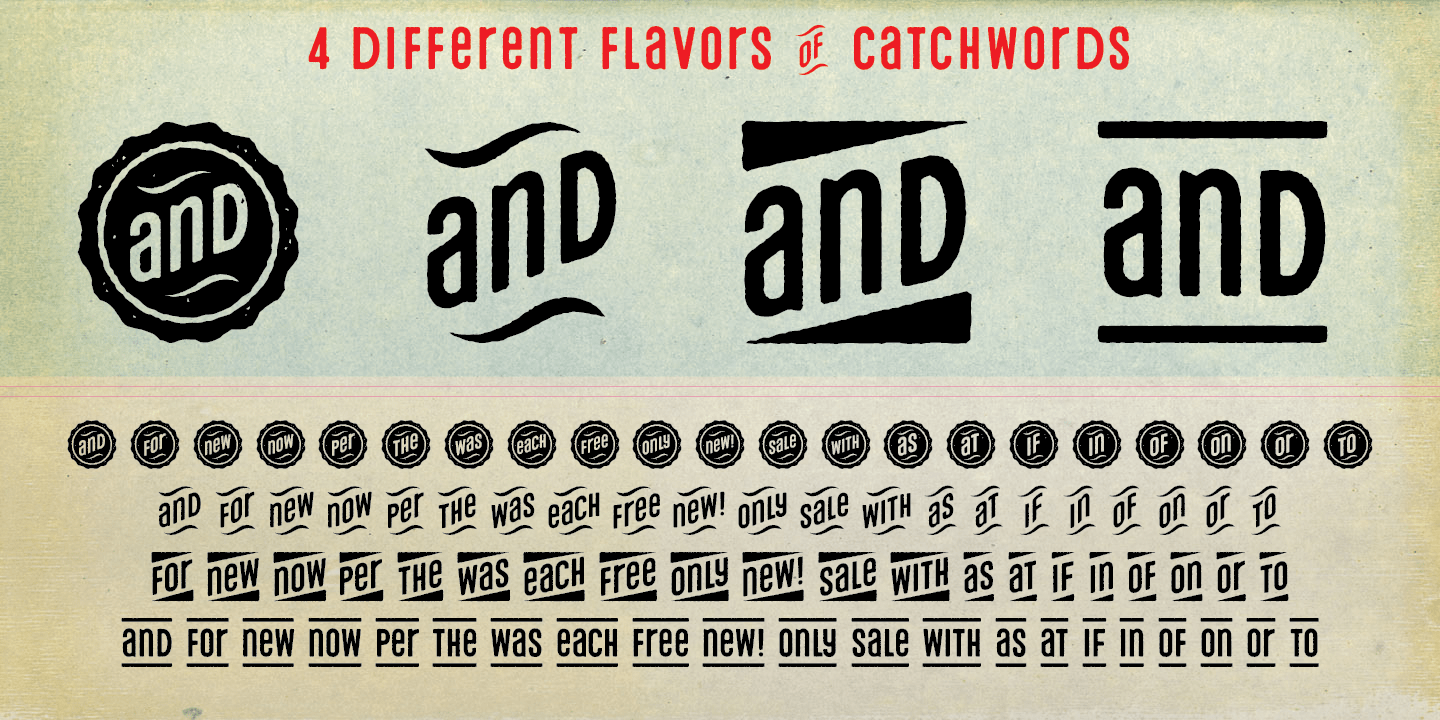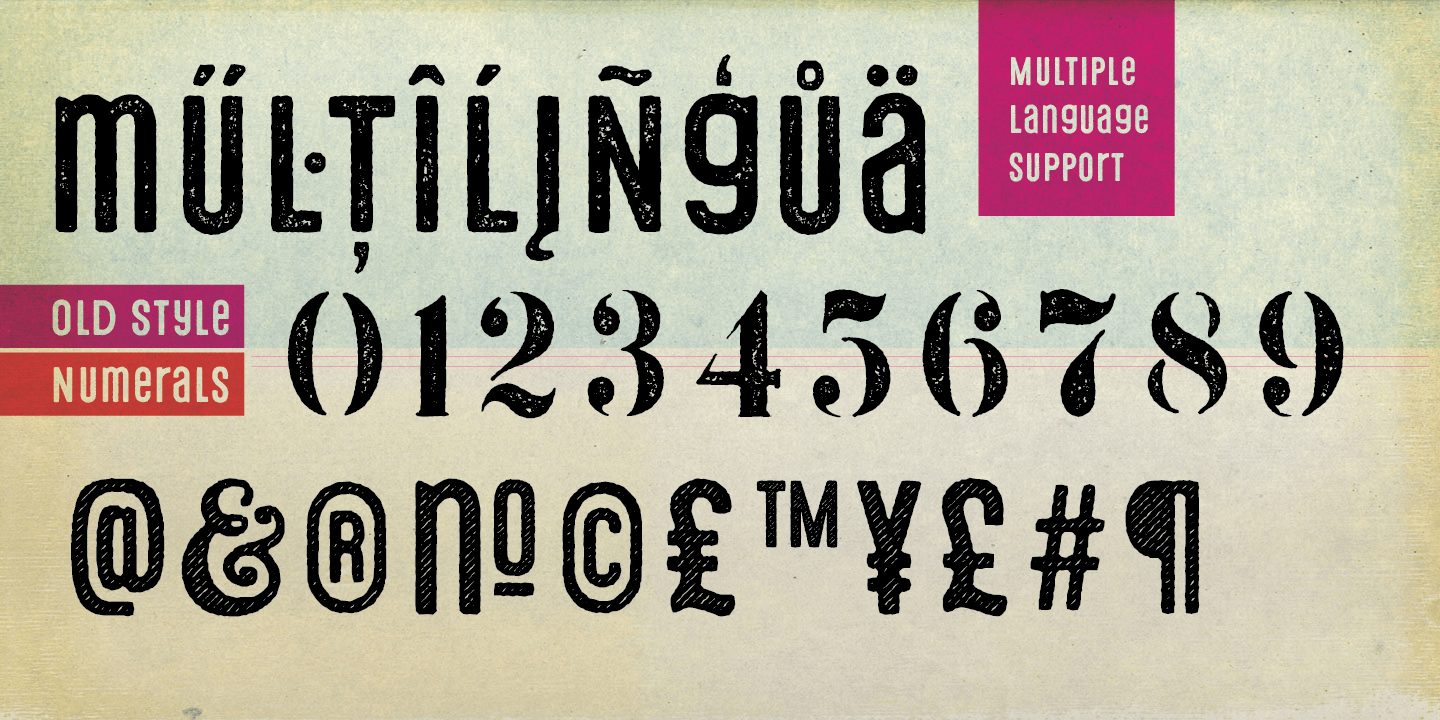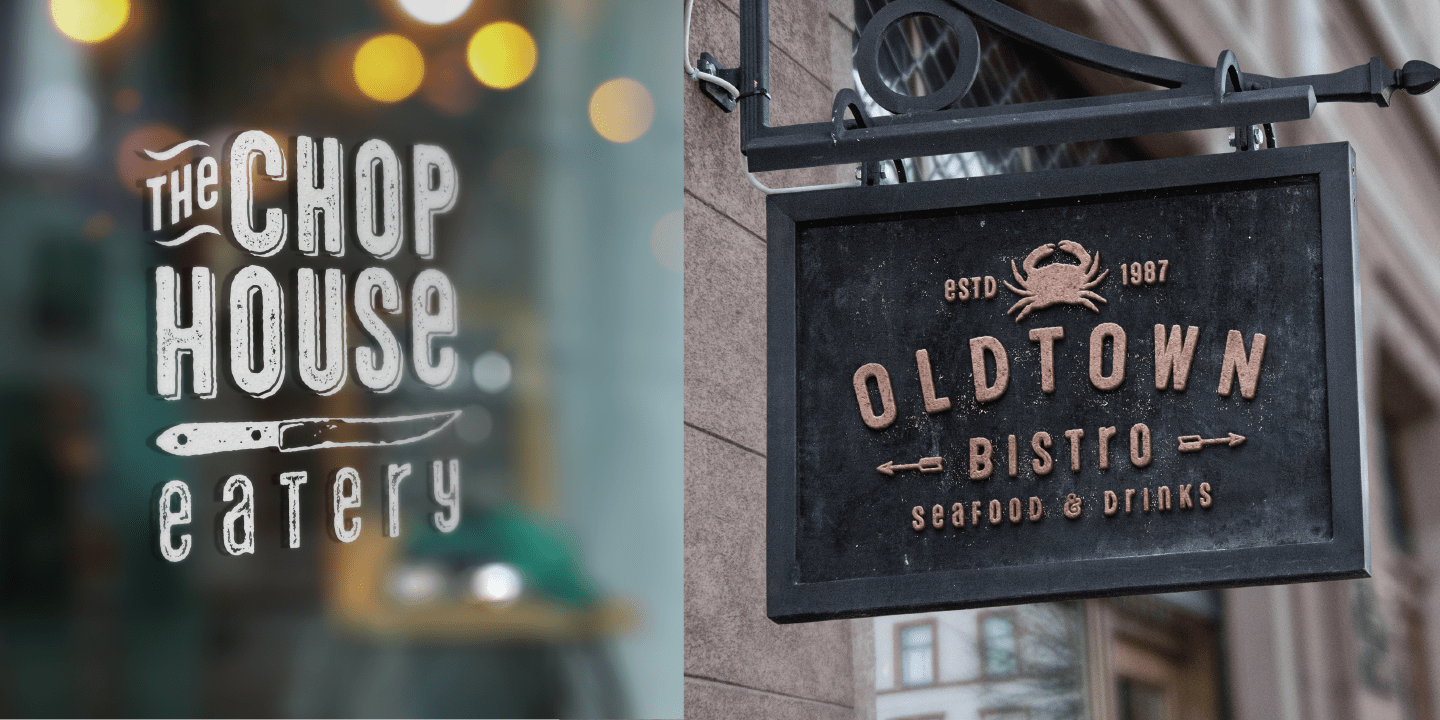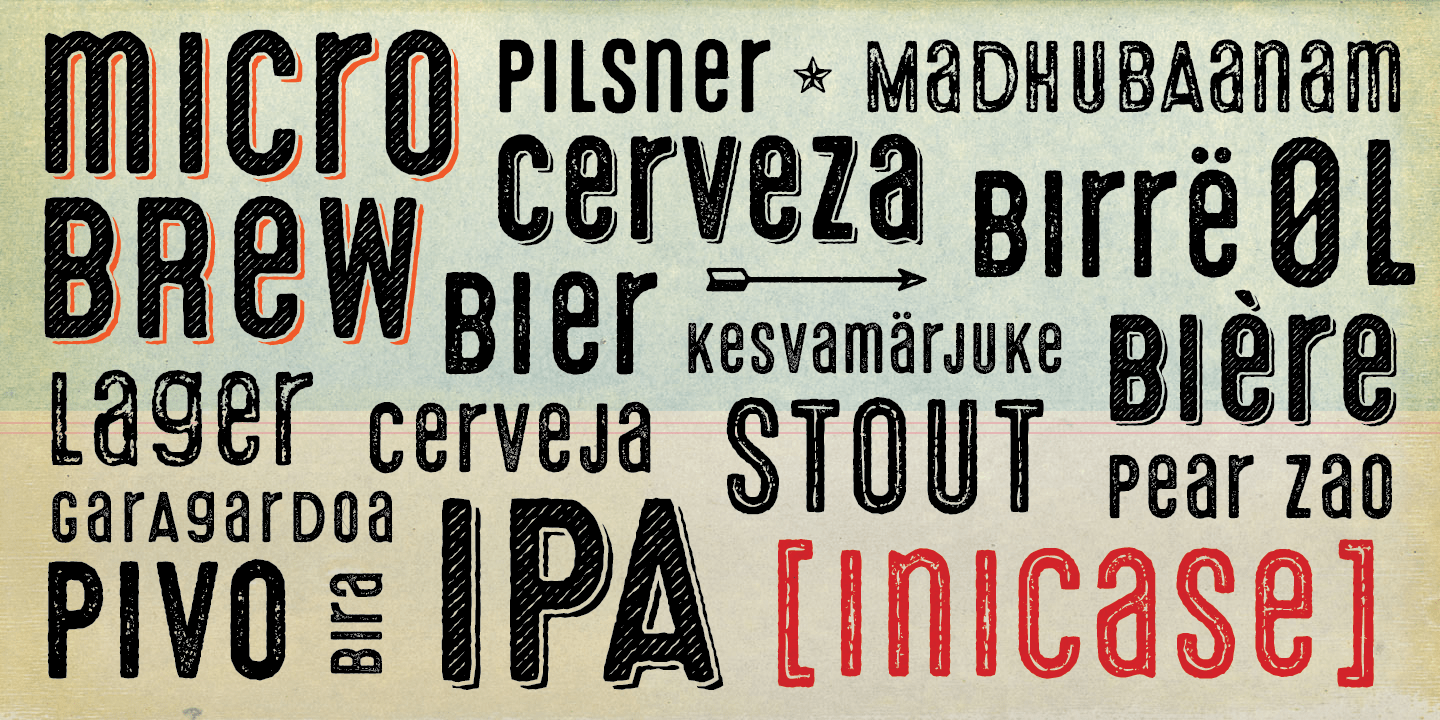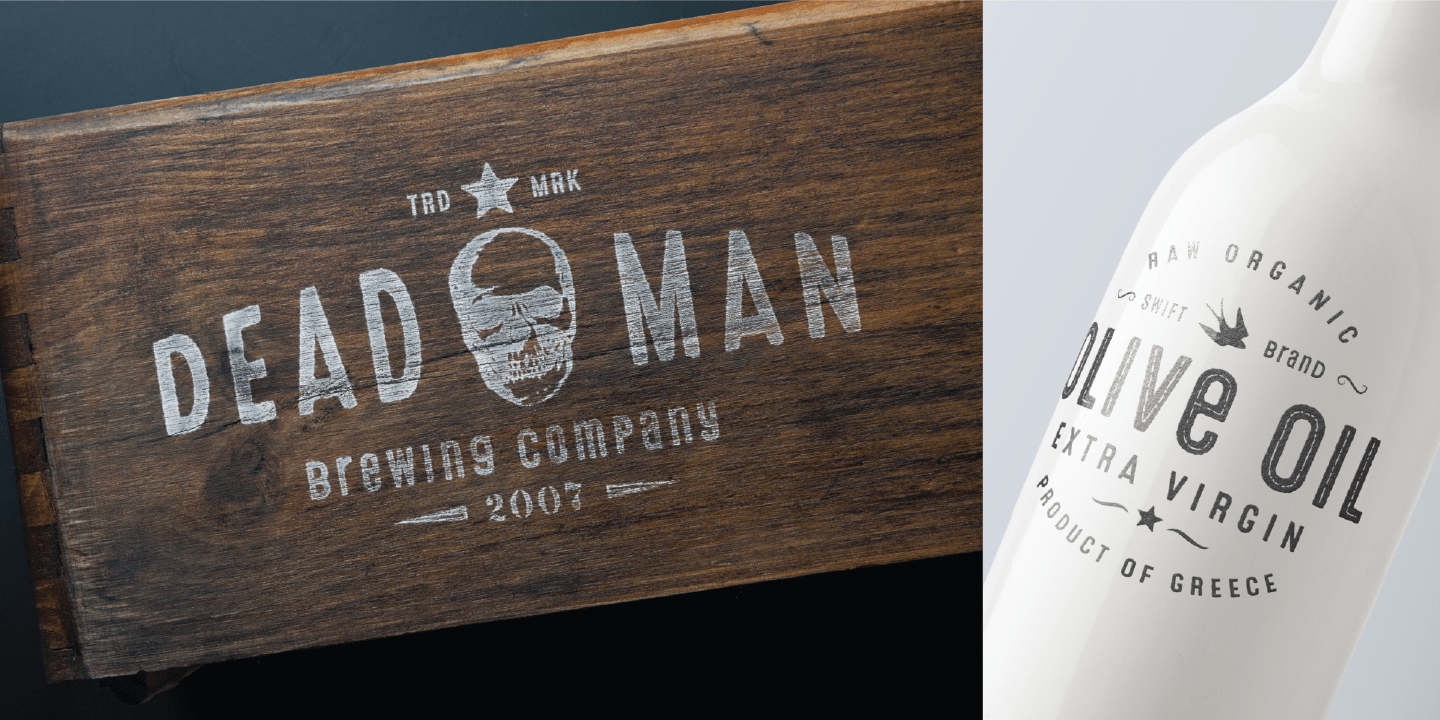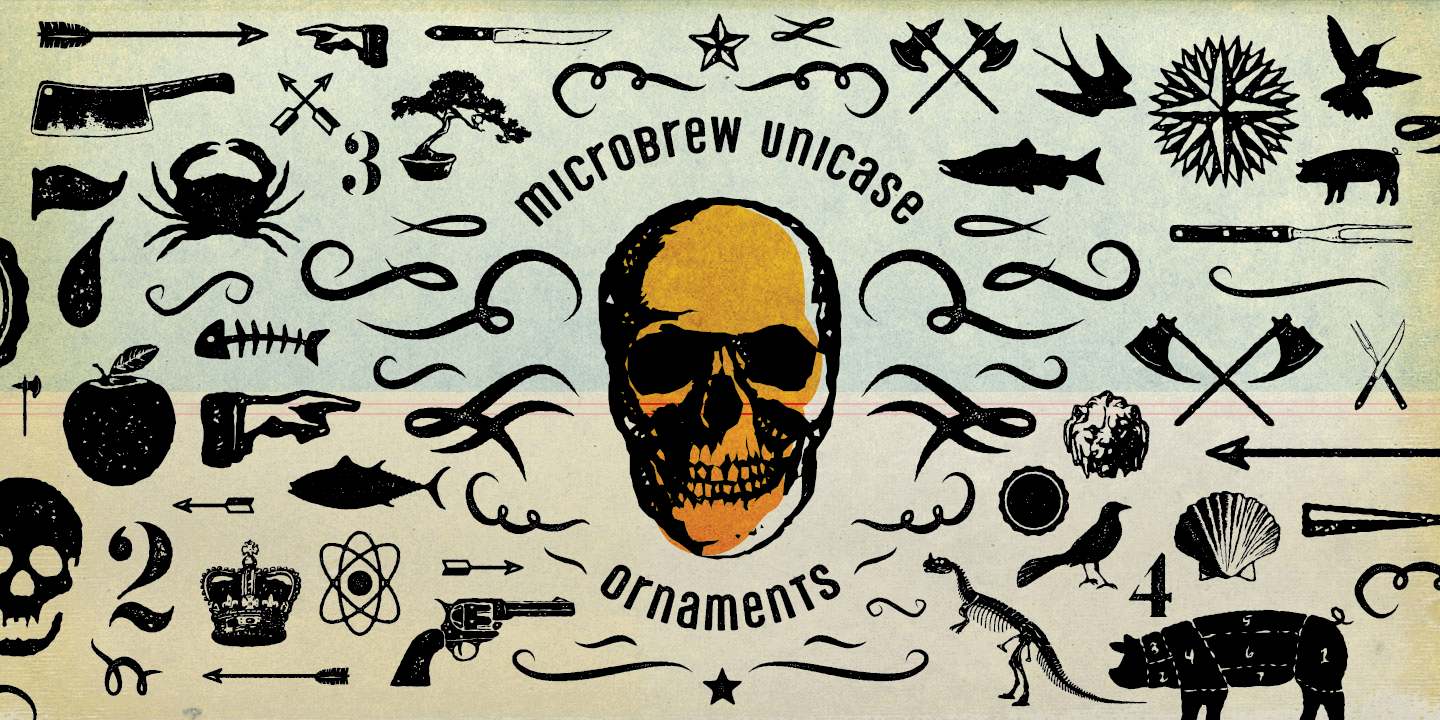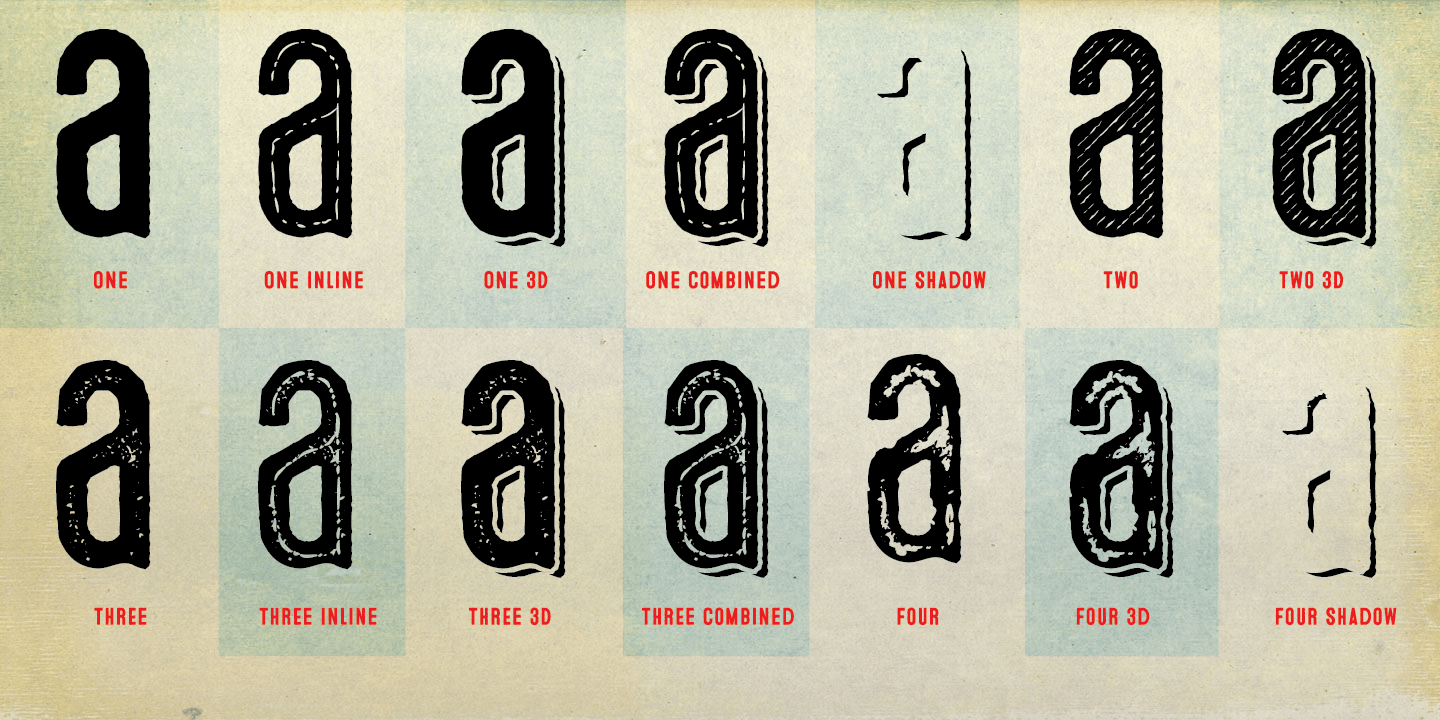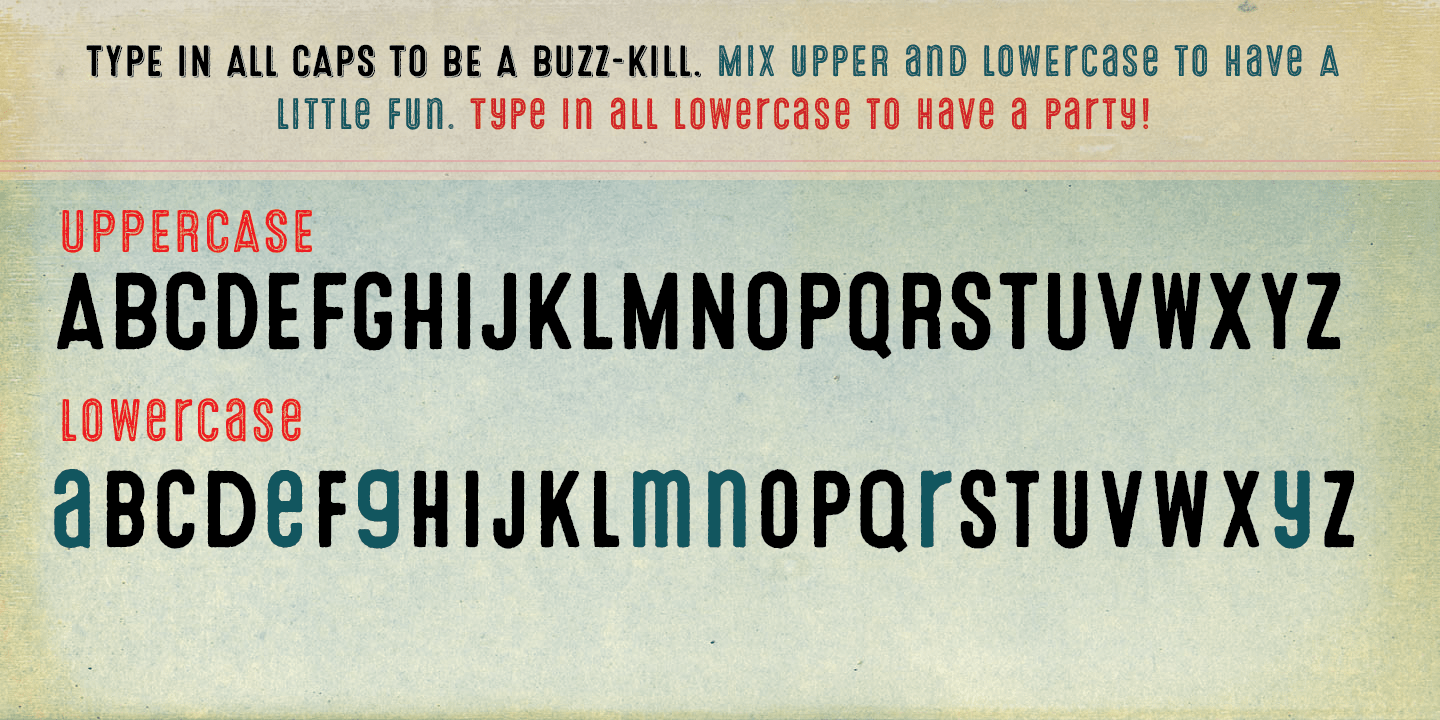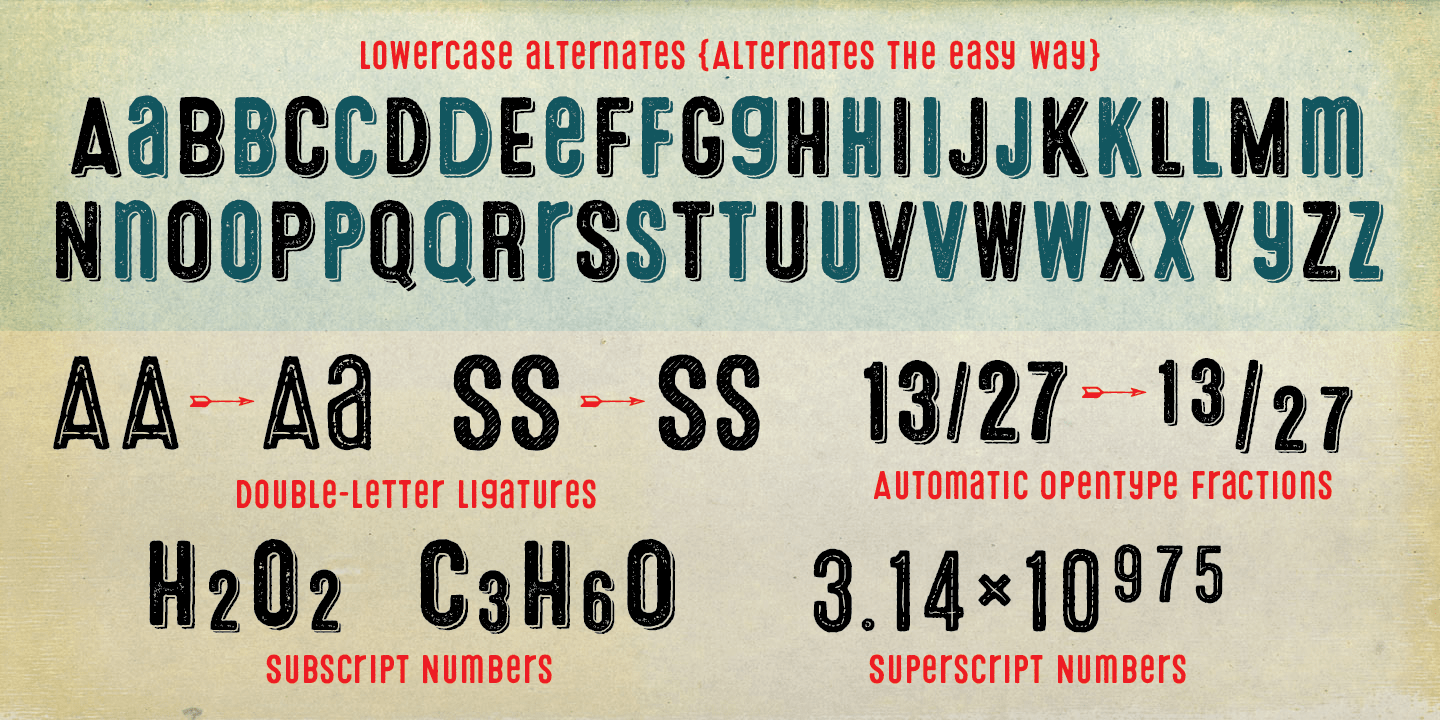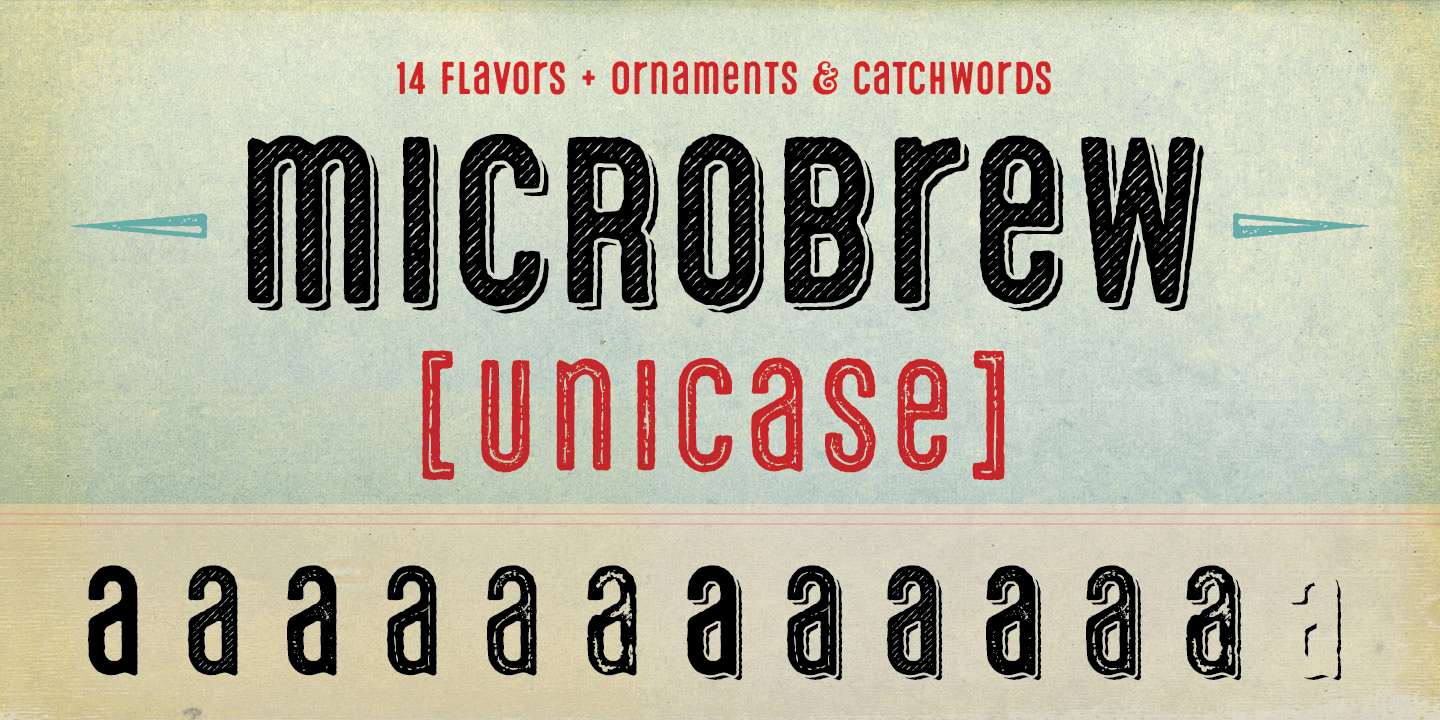
Microbrew Unicase is the latest addition to the Microbrew family, a versatile retro display family. Microbrew Unicase has 14 individual styles plus a very functional set of catchwords, and a fresh and eclectic set of retro-style ornaments. Microbrew Unicase…